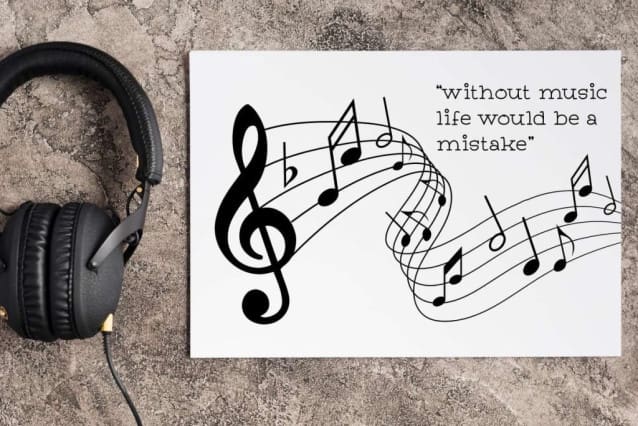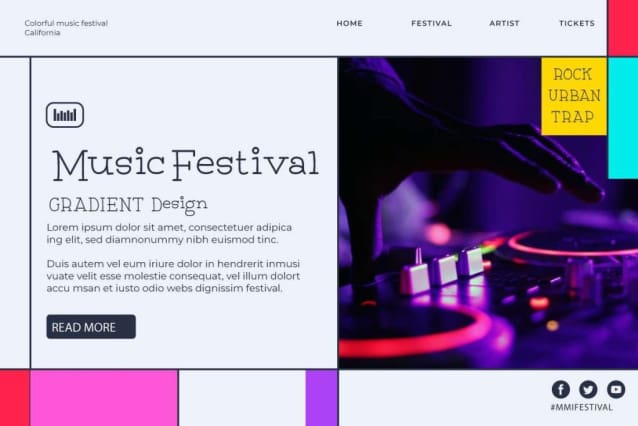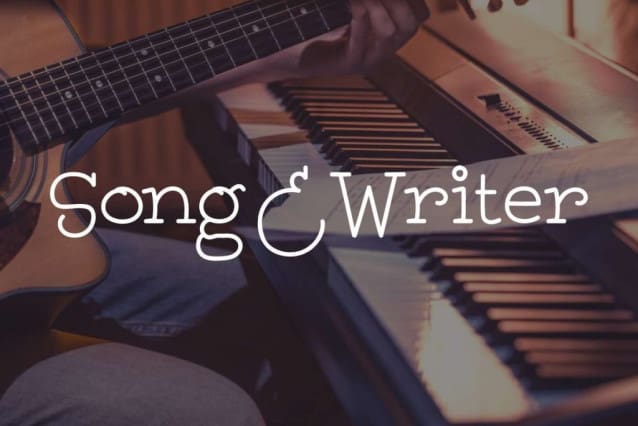
Song And Writer Font
Song And Writer Font is a stylish neat display font inspired by typewriters. It will be suitable for many industries such as, accessories, advertisement, author, café, clothing brand, event or festival, fashion, furniture, graphic design, musician, photography, restaurant, spa salon, songwriter, etc.
Song And Writer Font will be suitable for billboard, brand logo, brochure, business card, cover, embossed design, flyer, labels, mockup design, packaging design, paragraph, poster, quotes, signage, stationery, title, website, etc. This casual font works well when paired with other fonts and is still easy to read.